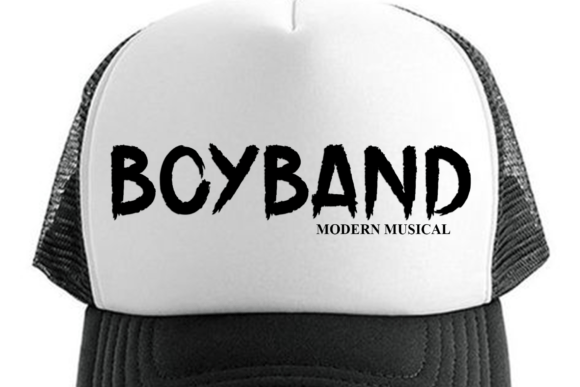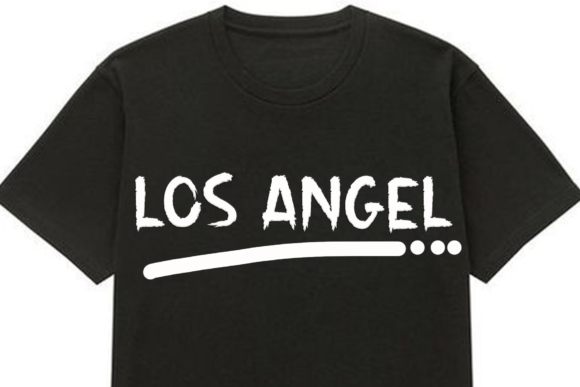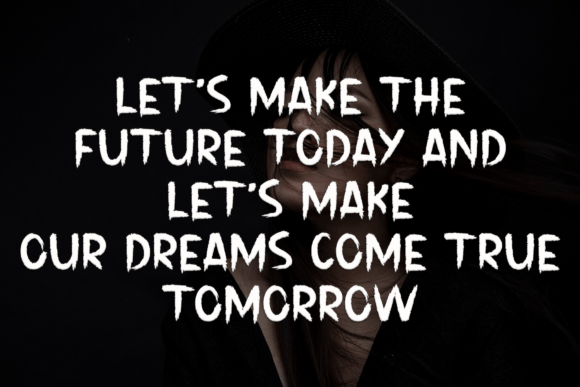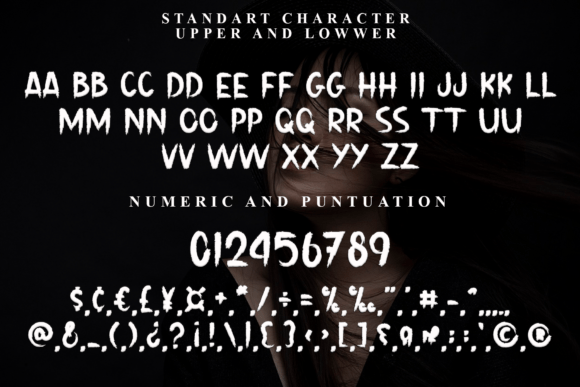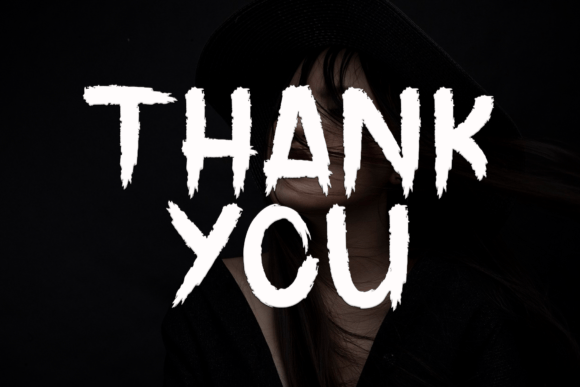
Introducing Brush Sharp Font: The Perfect Choice for Cheerful Designs
Are you looking for a font that can add a touch of playfulness and whimsy to your designs? Look no further than Brush Sharp Font! This fun and quirky display font is perfect for creating cheerful and eye-catching designs that are sure to delight. In this article, we’ll take a closer look at Brush Sharp Font and explore its features, benefits, and uses.
What is Brush Sharp Font?
Brush Sharp Font is a modern display font that is designed to bring a sense of fun and playfulness to your designs. Its unique and quirky style makes it perfect for use in children’s themed designs, such as kids’ party invitations, children’s books, and educational materials. The font’s bold and cheerful appearance is also well-suited for use in advertising, branding, and marketing materials.
Key Features of Brush Sharp Font
So, what makes Brush Sharp Font so special? Here are some of its key features:
- PUA Encoded: Brush Sharp Font is PUA (Private Use Area) encoded, which means that you can access all of the amazing glyphs and ligatures with ease. This makes it easy to use the font in your designs and to create unique and creative text effects.
- Fun and Quirky Style: Brush Sharp Font has a fun and quirky style that is perfect for creating cheerful and eye-catching designs. Its bold and playful appearance is sure to delight and engage your audience.
- Perfect for Children’s Designs: Brush Sharp Font is especially well-suited for use in children’s themed designs, such as kids’ party invitations, children’s books, and educational materials.
- Works Well with Bright Colors: Brush Sharp Font works perfectly with bright and bold colors, making it ideal for use in designs where you want to make a big impact.
Benefits of Using Brush Sharp Font
So, why should you choose Brush Sharp Font for your designs? Here are some of the benefits of using this amazing font:
- Adds a Touch of Whimsy: Brush Sharp Font adds a touch of whimsy and playfulness to your designs, making them more engaging and fun.
- Perfect for Kids’ Designs: Brush Sharp Font is perfect for use in children’s themed designs, making it a great choice for designers who specialize in kids’ party invitations, children’s books, and educational materials.
- Easy to Use: Brush Sharp Font is easy to use and can be accessed with ease, thanks to its PUA encoding.
- High-Quality Design: Brush Sharp Font is a high-quality design that is sure to impress your clients and audience.
Uses of Brush Sharp Font
So, what can you use Brush Sharp Font for? Here are some ideas:
- Kids’ Party Invitations: Brush Sharp Font is perfect for use in kids’ party invitations, adding a touch of whimsy and fun to your designs.
- Children’s Books: Brush Sharp Font is a great choice for use in children’s books, making them more engaging and fun for young readers.
- Educational Materials: Brush Sharp Font is well-suited for use in educational materials, such as worksheets, activity sheets, and educational posters.
- Advertising and Marketing: Brush Sharp Font can also be used in advertising and marketing materials, such as flyers, brochures, and social media graphics.
In conclusion, Brush Sharp Font is a fun and quirky display font that is perfect for creating cheerful and eye-catching designs. Its unique and playful style makes it well-suited for use in children’s themed designs, and its PUA encoding makes it easy to use and access. Whether you’re a designer, crafter, or DIY enthusiast, Brush Sharp Font is a great choice for adding a touch of whimsy and fun to your designs.